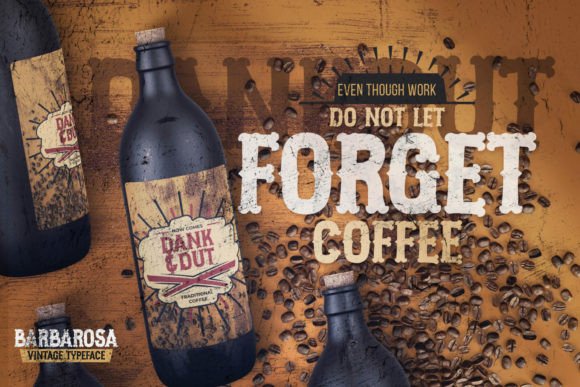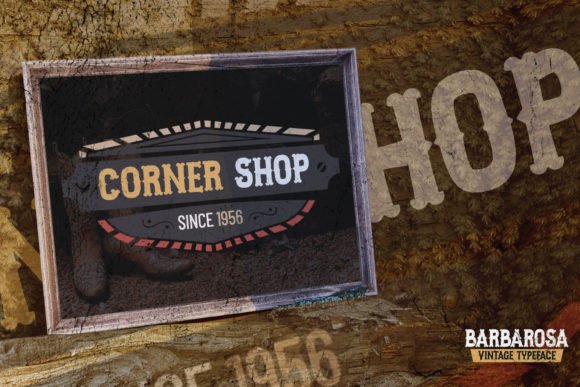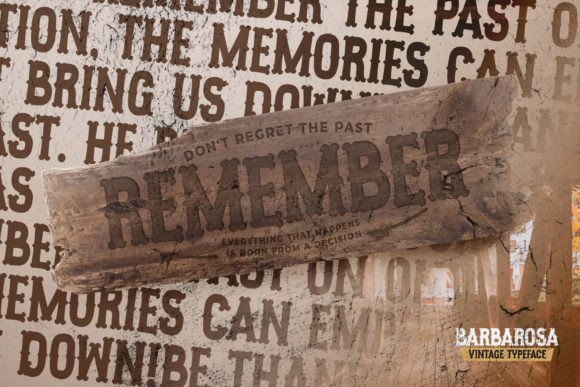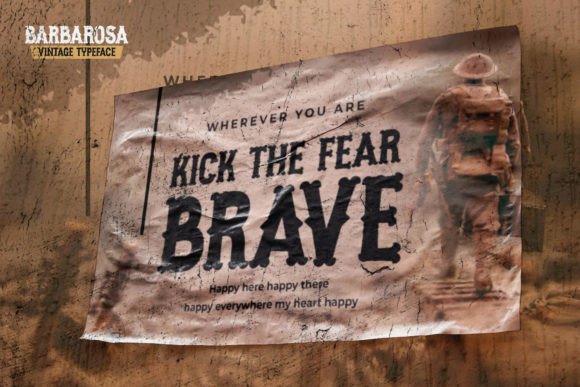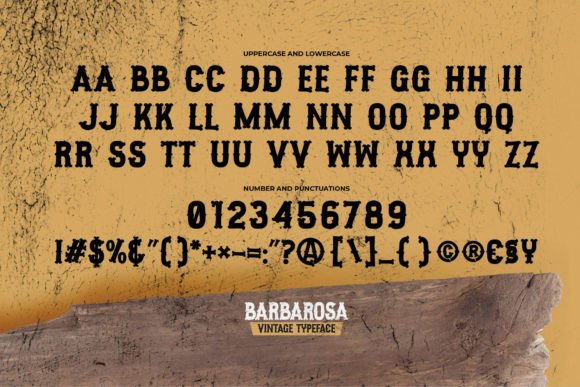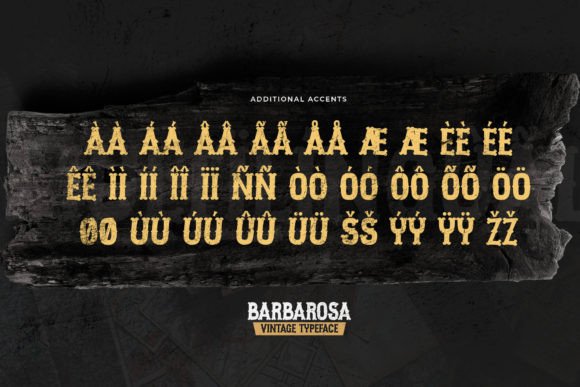
Introducing Barbarosa Font: Elevate Your Designs with a Touch of Vintage Elegance
In the realm of typography, fonts play a pivotal role in transforming a design from ordinary to extraordinary. For designers and crafters seeking to infuse their projects with a dash of sophistication and nostalgia, the Barbarosa Font is an exceptional choice. This vintage serif font, inspired by the decorative arts and architecture movement, is poised to revolutionize your visual creations.
The Essence of Barbarosa Font
Barbarosa is not just a font; it’s an experience. It brings to the table a rich, vintage aesthetic that can instantly elevate the visual appeal of any design. Whether you’re working on a logotype, headline, poster, logo, badge, certificate, label, or any other project, Barbarosa provides the perfect blend of elegance and charm. Its unique characteristics are deeply rooted in the decorative arts and architecture movement, making it a standout in the world of typography.
Design Versatility with Barbarosa
One of the key advantages of the Barbarosa Font is its incredible versatility. Designers can use it across a wide range of projects, from traditional print designs to digital media. Here are some ways Barbarosa can enhance your designs:
- Logotypes: Create memorable and impactful logos that stand out.
- Headlines: Craft headlines that grab attention and add a vintage flair to your content.
- Posters: Design eye-catching posters for events, promotions, or informational purposes.
- Logos and Badges: Develop unique logos and badges that carry a sense of tradition and quality.
- Certificates and Labels: Add a touch of elegance to official documents and product labels.
Inspiration from Decorative Arts and Architecture
Barbarosa’s design is deeply inspired by the decorative arts and architecture movement, which is characterized by its ornate and intricate details. This inspiration is evident in the font’s serifs, which are elegantly designed with a vintage touch. The movement, popular in the late 19th and early 20th centuries, sought to break away from the strict functionalism of the Industrial Revolution, emphasizing beauty and craftsmanship. By incorporating elements of this style, Barbarosa Font brings a sense of history and craftsmanship to your designs.
Why Choose Barbarosa Font?
With so many fonts available, why should Barbarosa be your go-to choice? Here are a few compelling reasons:
- Unique Aesthetic: Barbarosa offers a distinctive vintage look that can set your designs apart.
- High Versatility: Suitable for a wide range of projects, from digital to print.
- Ease of Use: Designed to be user-friendly, making it easy to integrate into your projects.
- Quality and Craftsmanship: Reflects a high level of craftsmanship, perfect for projects where quality is paramount.
Barbarosa Font is more than just a typeface; it’s a design statement. With its roots in the decorative arts and architecture movement, it brings a timeless elegance to your projects. Whether you’re a professional designer or a crafter, Barbarosa offers the tools to create visually stunning designs that resonate with your audience. Embrace the vintage charm and versatility of Barbarosa Font, and watch your designs transform into captivating visual experiences.
Incorporating Barbarosa into your design toolkit is a step towards creating memorable, engaging, and beautifully crafted visual content. Experience the difference that a vintage serif font can make in your projects, and let Barbarosa guide you towards achieving design excellence.